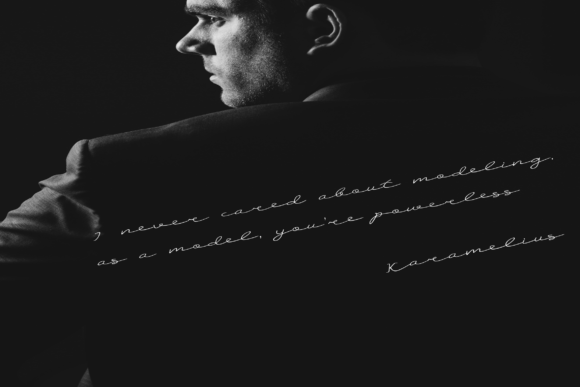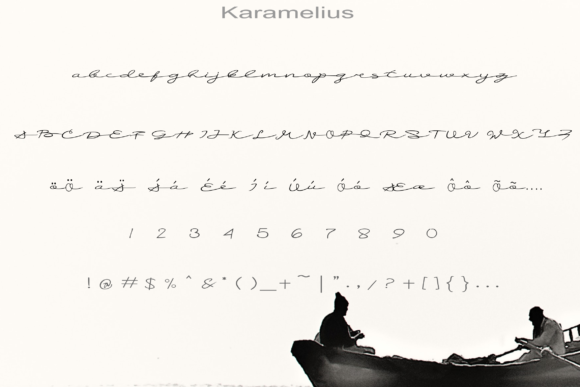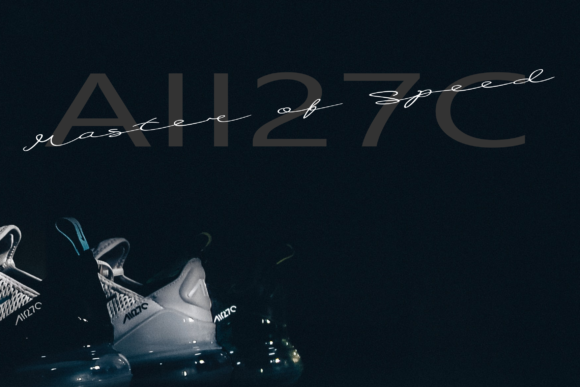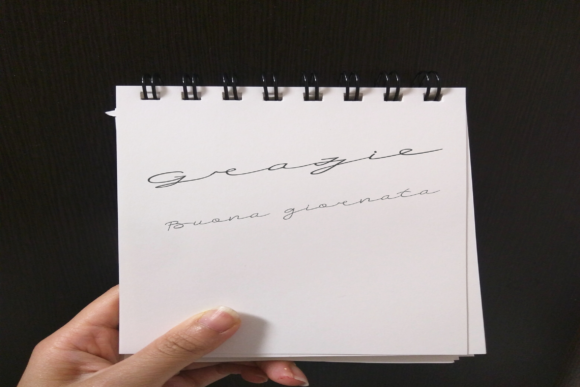
Introduction to Karamelius Font
Karamelius is an elegant and flowing handwritten font.
It features an incredibly classic style, while still keeping a friendly feel Karamelius is the perfect font for making original and outstanding designs.
Key Features of Karamelius Font